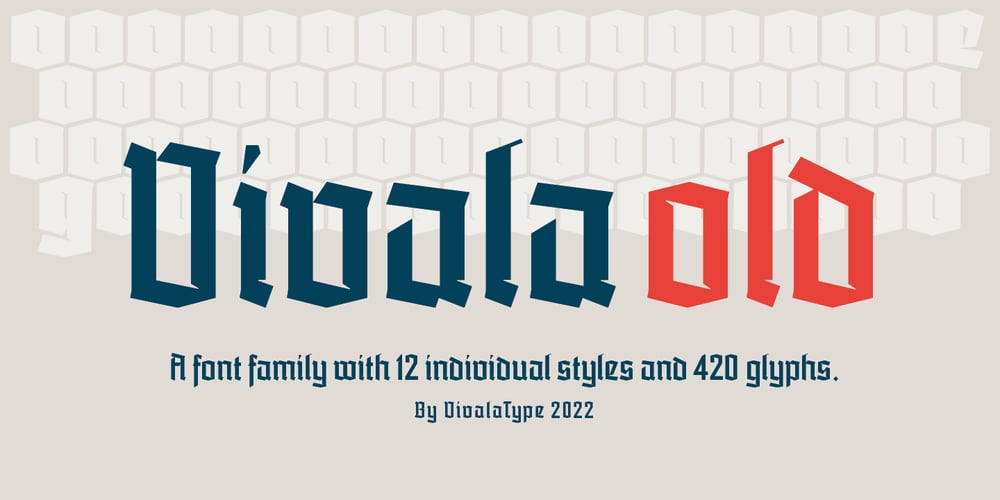
Vivala Old
Vivala Old font
Vivala Old Font Family was designed by Johannes Hoffmann and published by Johannes Hoffmann. Vivala Old contains 12 styles and family package options. The Vivala old black letter font family is characterized by its hard-cut lines. This gives the typeface a special woodcut-like character. The typeface family offers a wide range of possibilities for design. It works well for posters, packaging, and corporate design for restaurants or breweries.